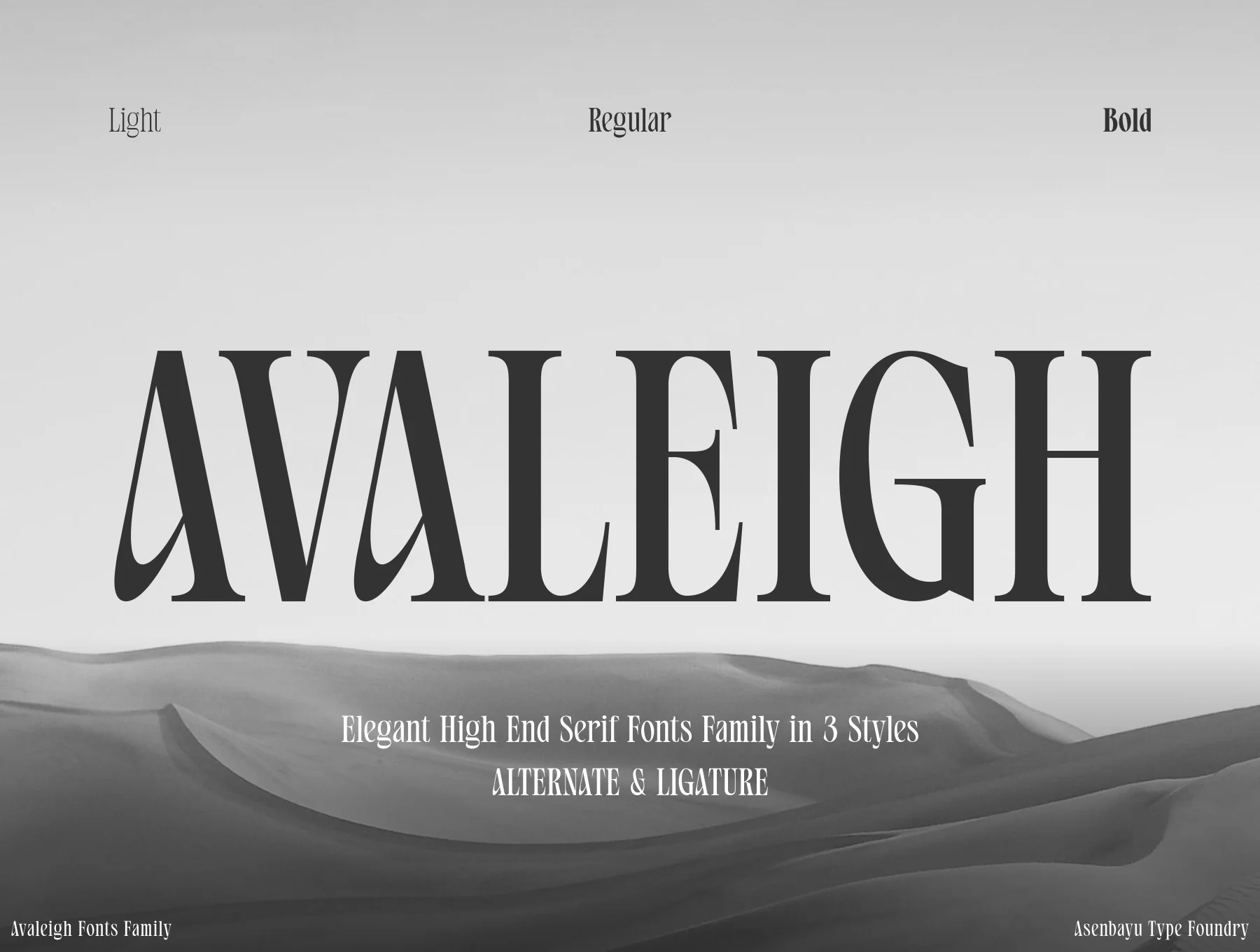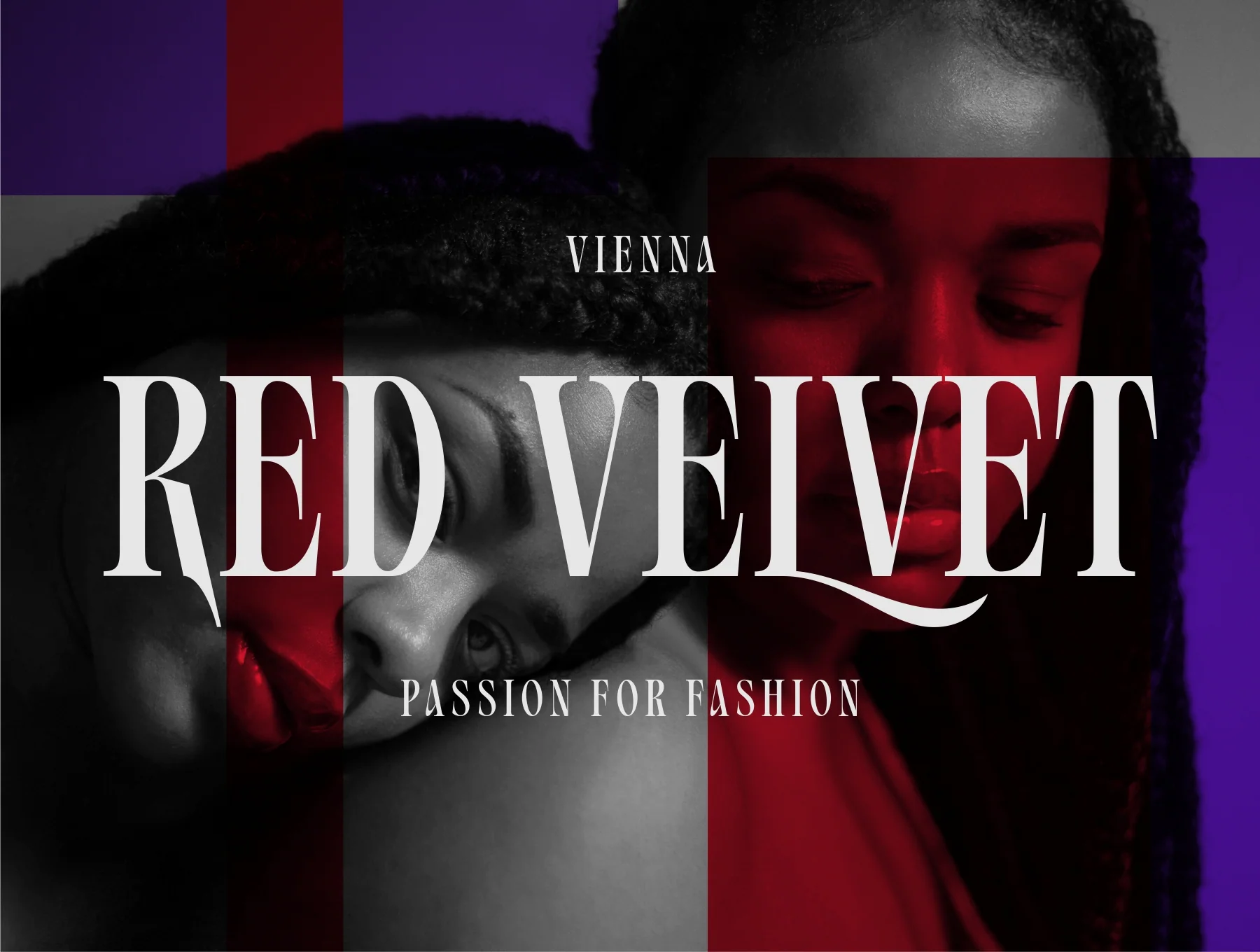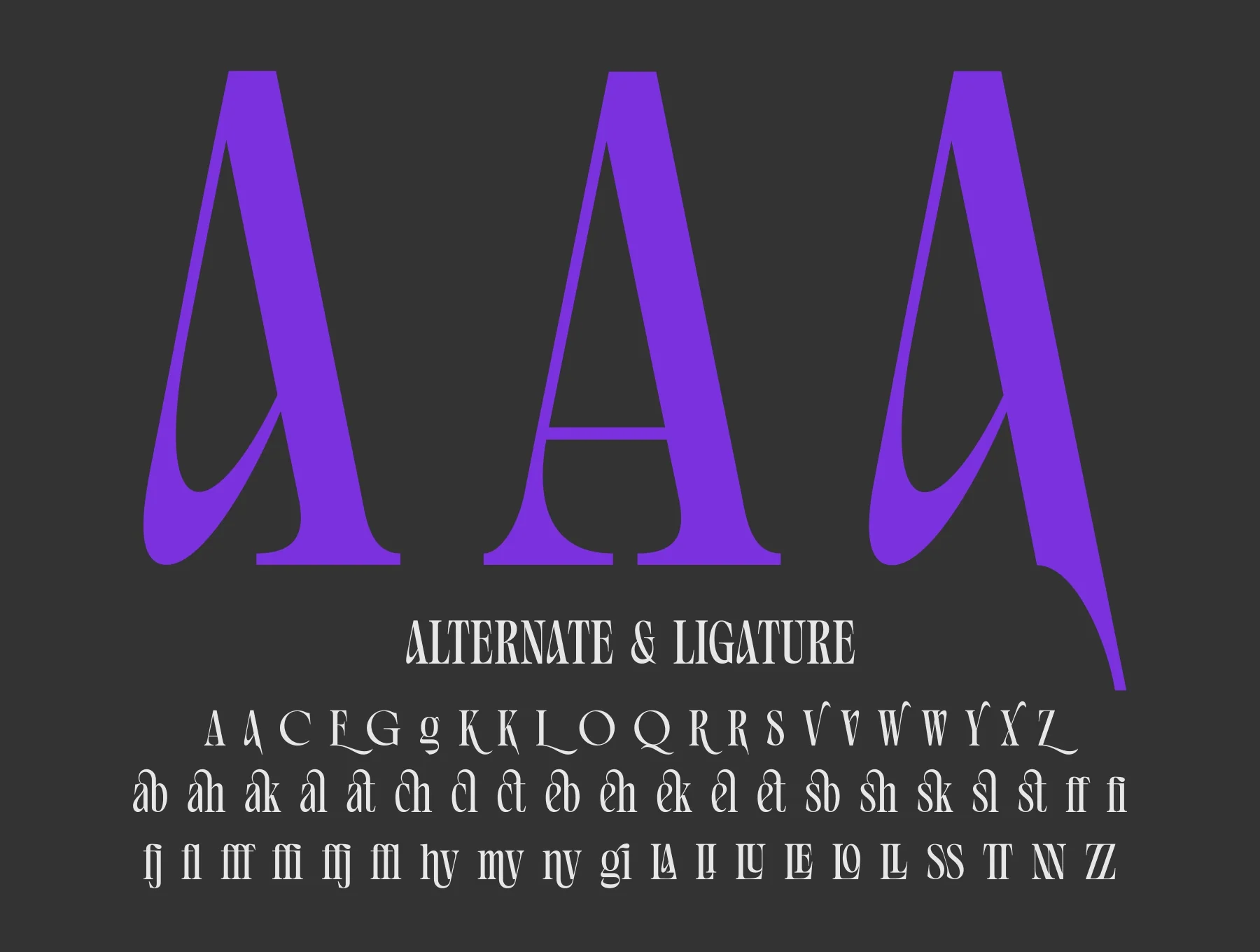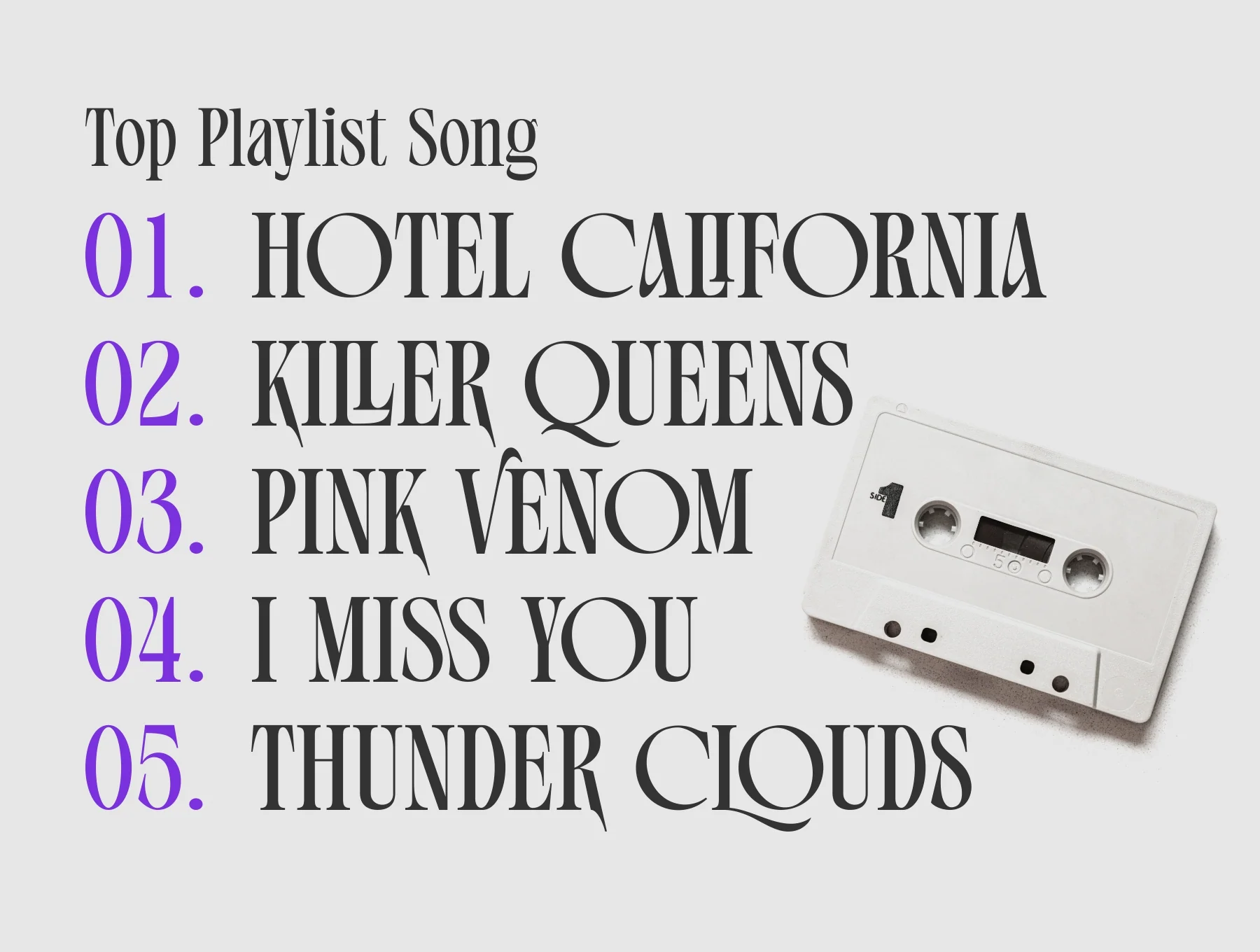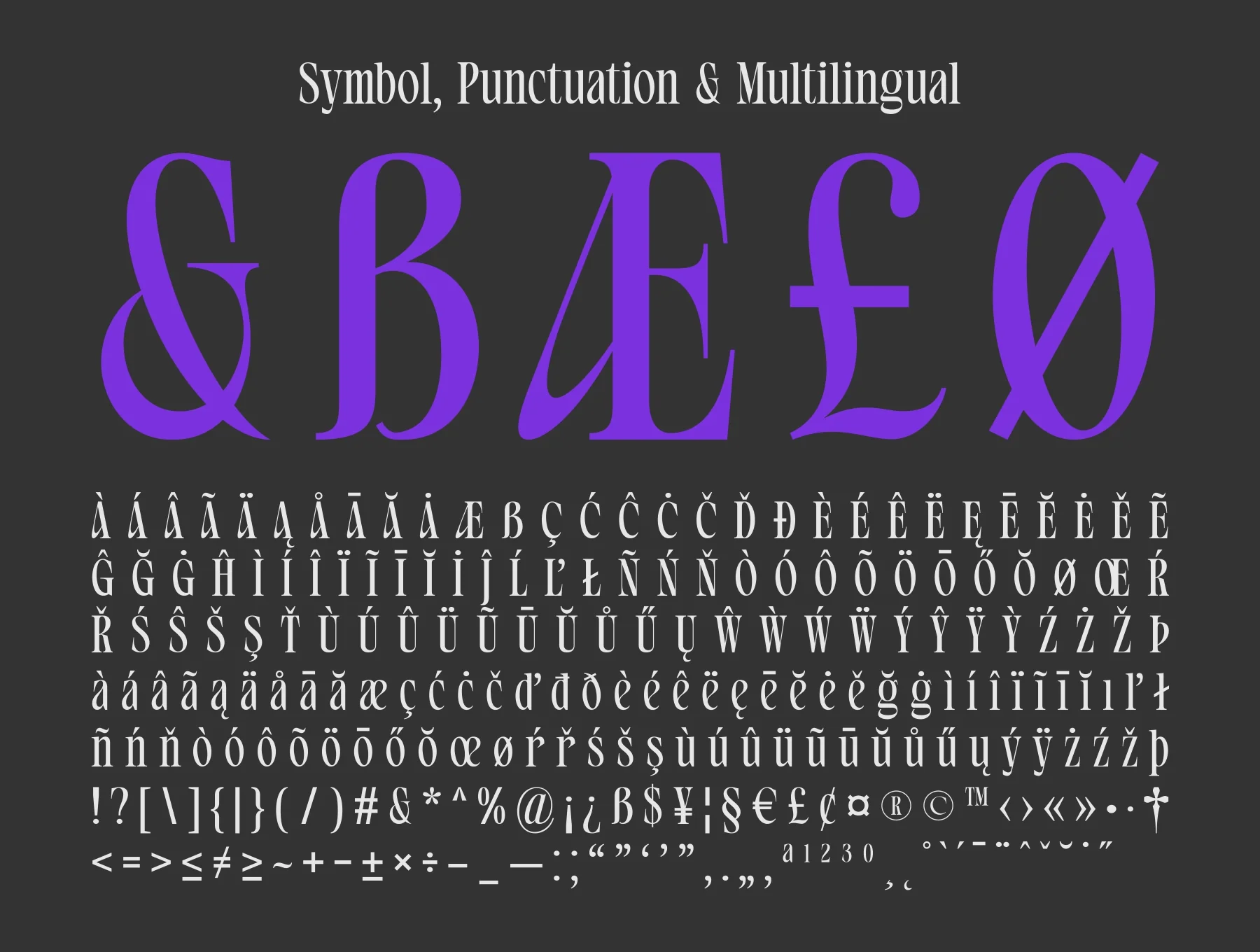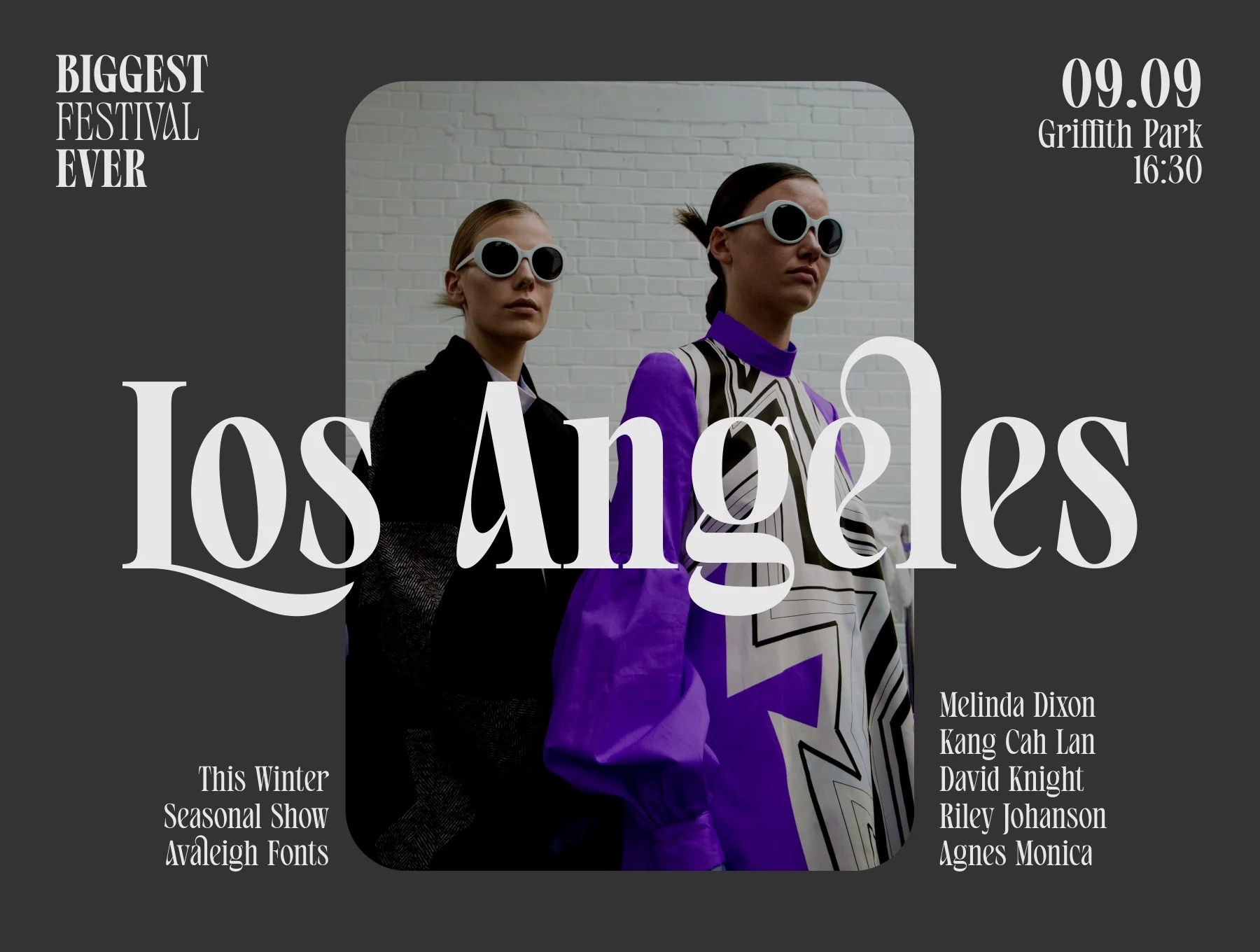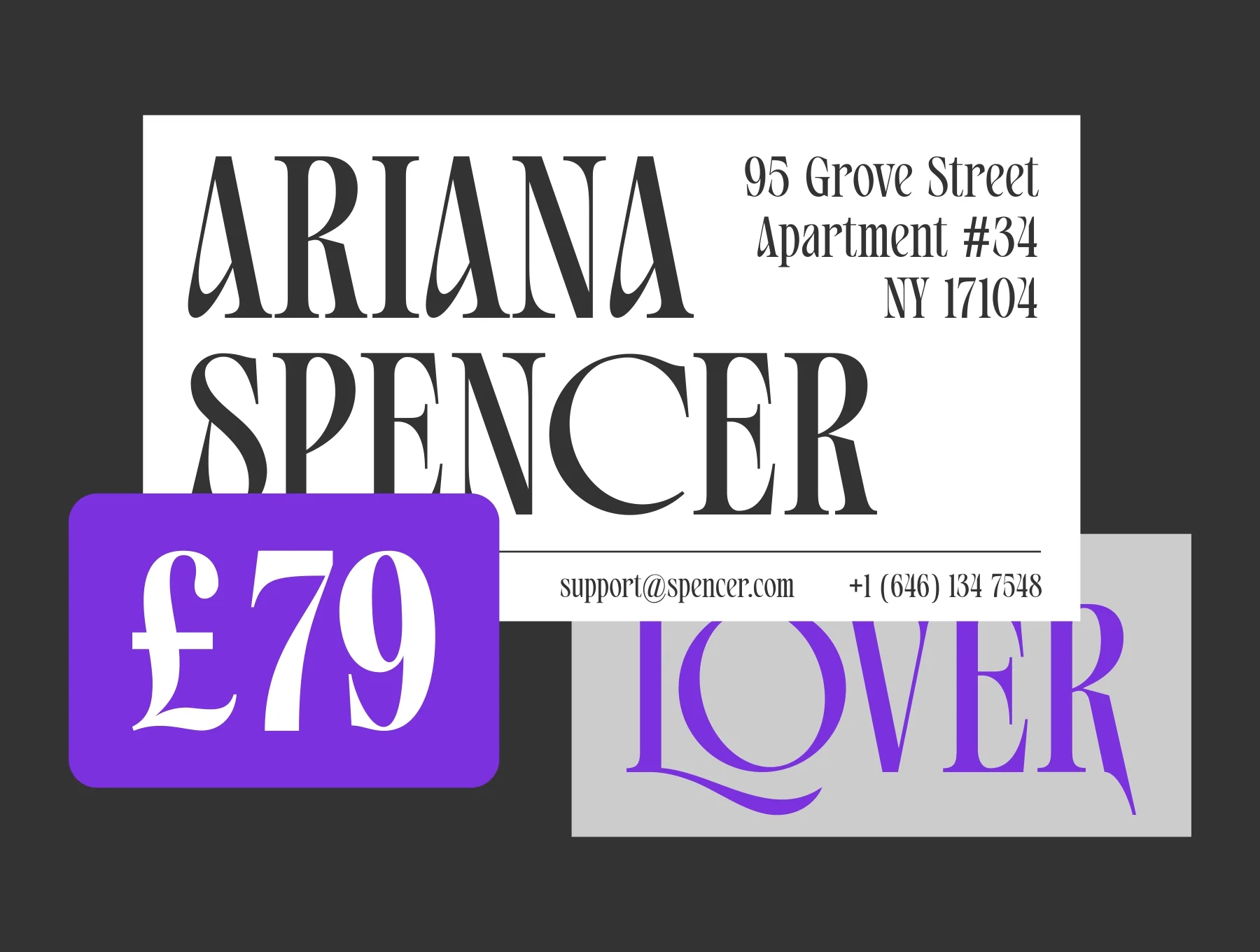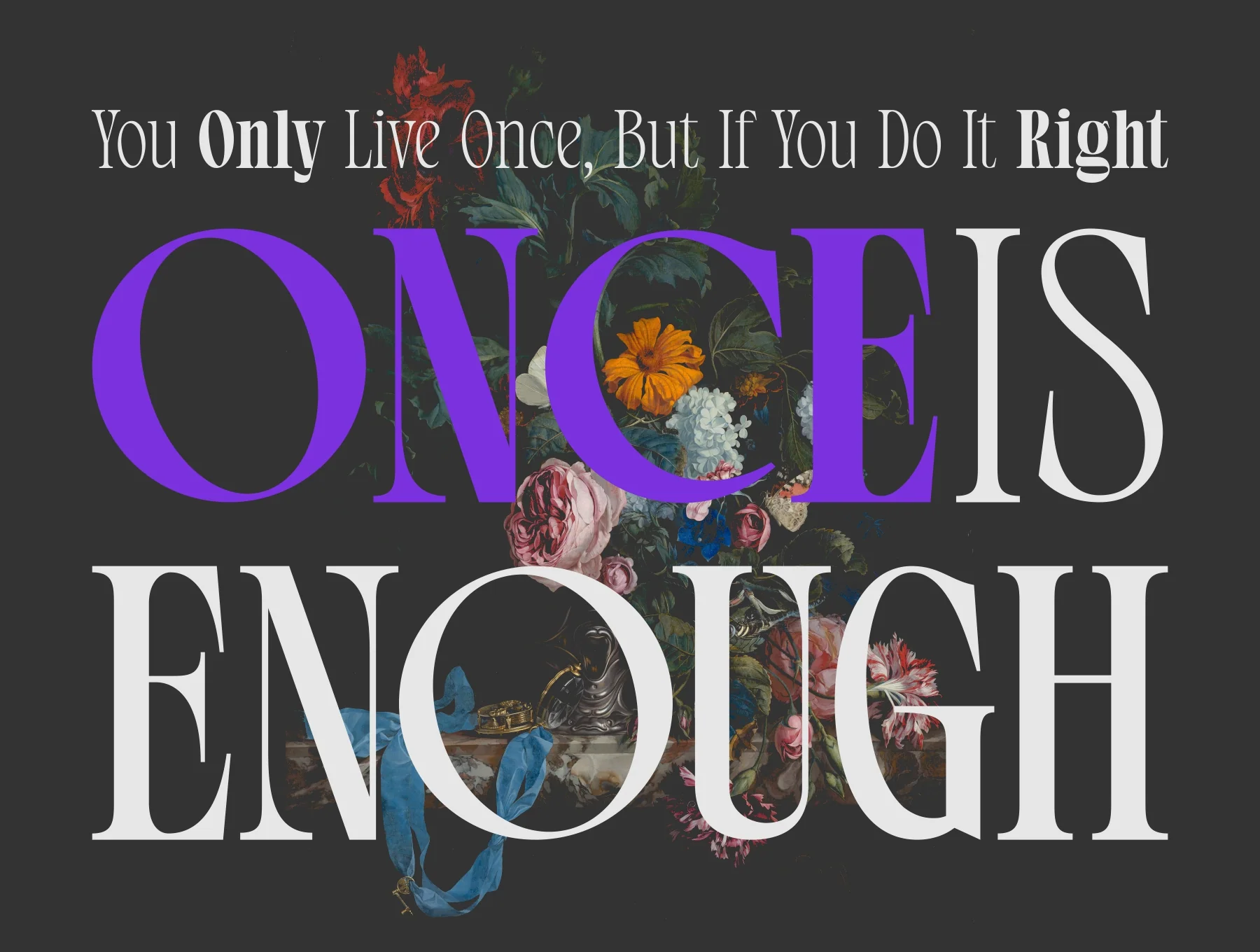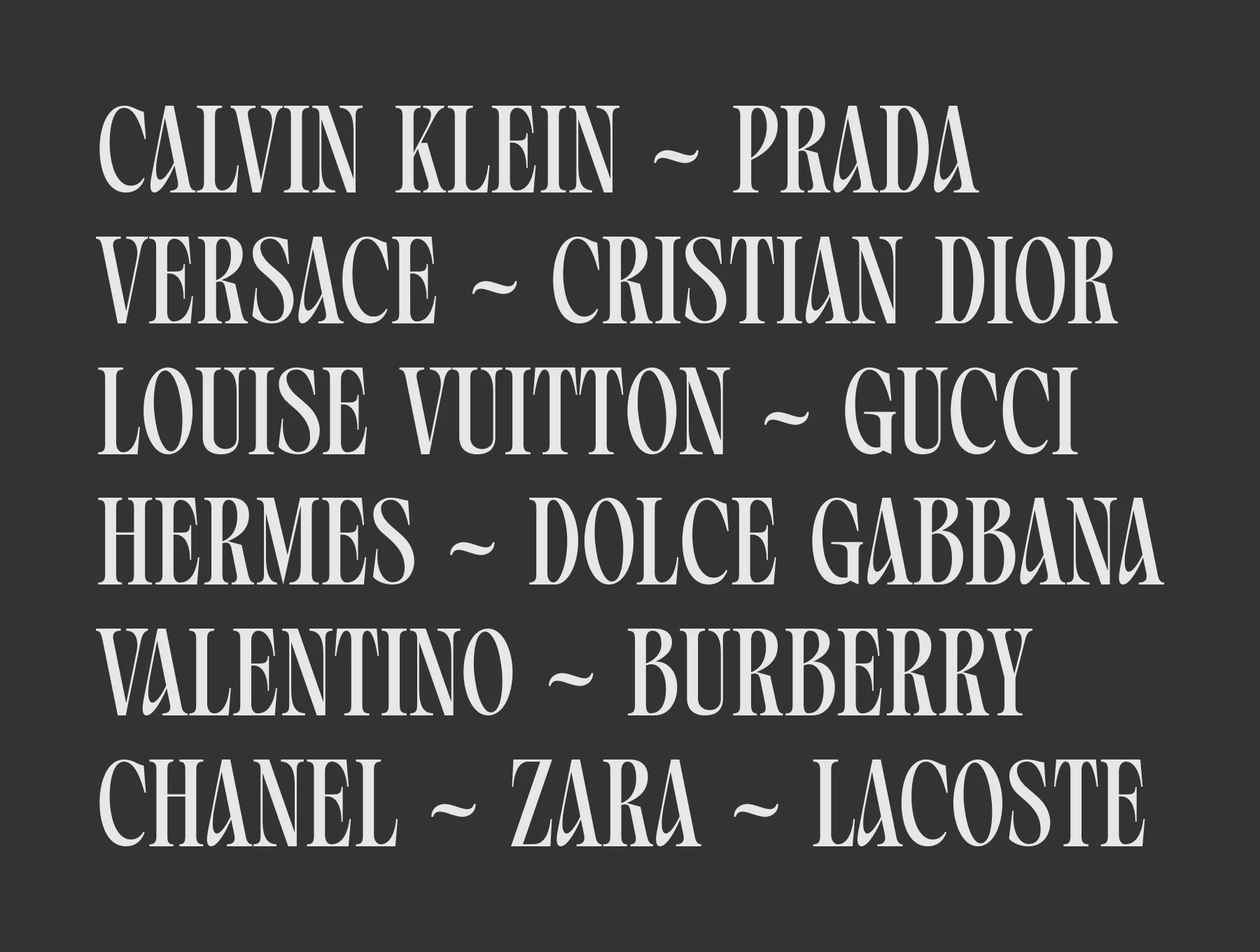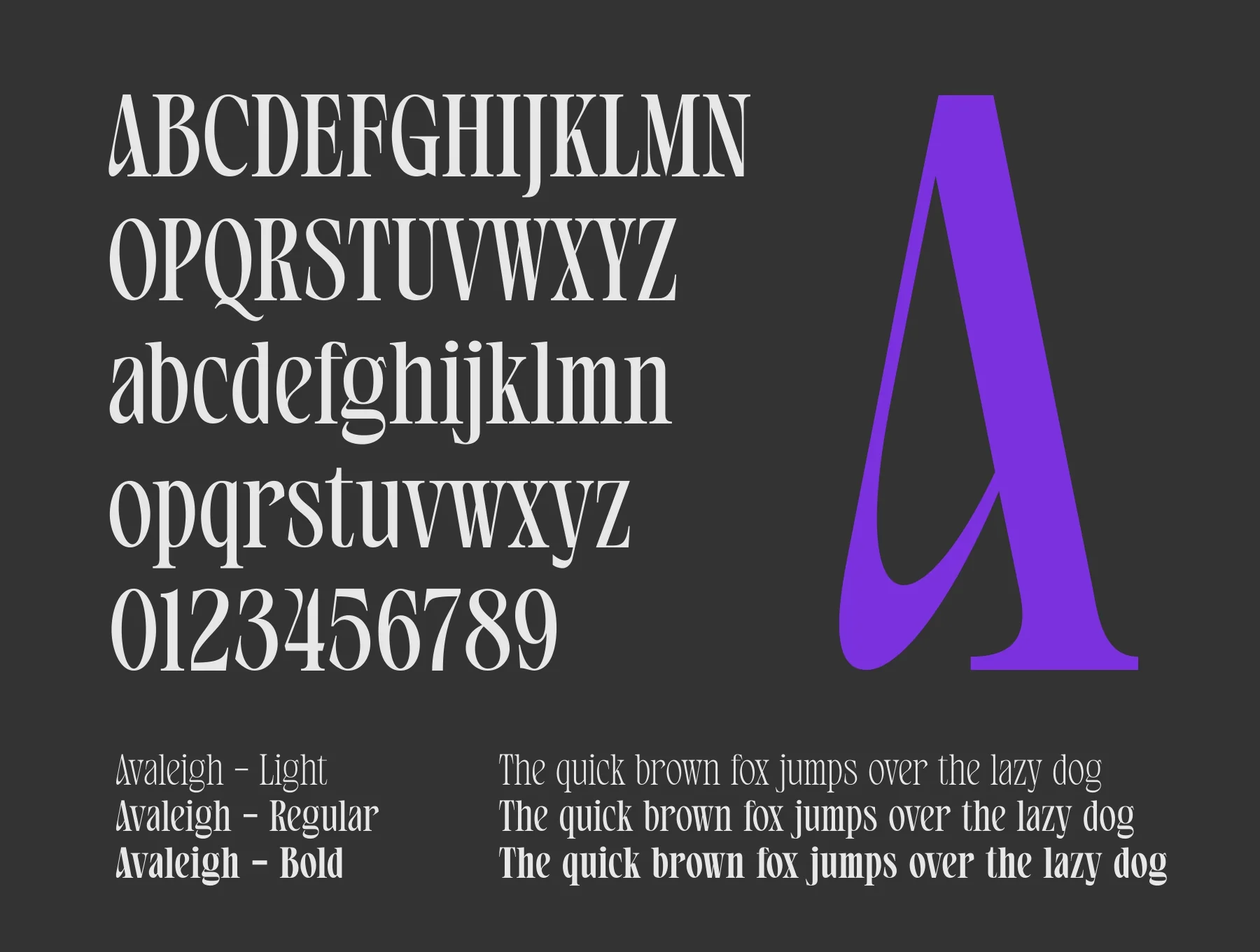
Avaleigh Fonts Family
Refined Serif Font Family with 3 Styles
Three style options
Default glyph design
Numbers and punctuation marks
Stylistic variants and ligatures
Avaleigh is a refined premium serif font family in three styles. Its tall, slim letterforms create a striking look, with carefully shaped characters for polished visuals. Ideal for logos, headlines, product design, social posts, websites, and more. Includes OpenType features, kerning, ligatures, alternates, Light, Regular, Bold, plus multilingual support.